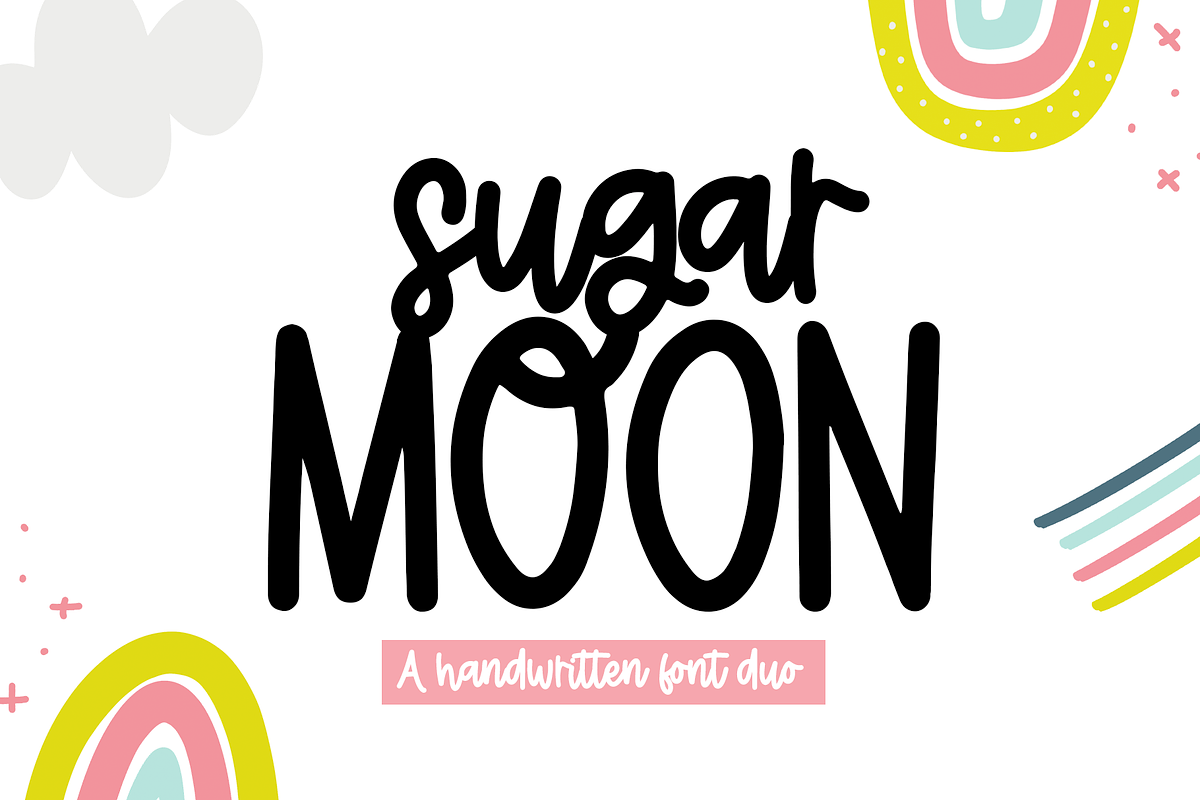
Sugar Moon | Handwritten Font Duo Free Download
Sugar Moon | Handwritten Font Duo Free Download is a charming and versatile font pairing that combines a playful handwritten script with a clean, modern sans-serif. Perfect for branding, invitations, social media graphics, and custom designs, this duo offers the perfect balance of personal flair and professional polish.
The script font features elegant, fluid strokes that bring warmth and character, while the sans-serif font provides a complementary, easy-to-read style. Whether you're designing wedding invitations, product labels, or casual social media posts, Sugar Moon | Handwritten Font Duo Free Download offers endless creative possibilities.
Elevate your designs with Sugar Moon | Handwritten Font Duo Free Download, and create visually engaging, stylish projects with the perfect mix of handwritten charm and modern simplicity.